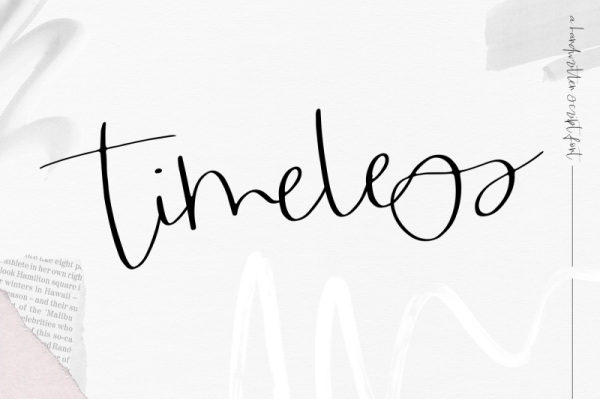
Freebie Wednesday: Timeless Handwritten Script Font
Timeless is a free handwritten script font (by KA Designs) and freebie of the week at The Hungry Jpeg. Don’t wait too long, the offer expires in 5 days!